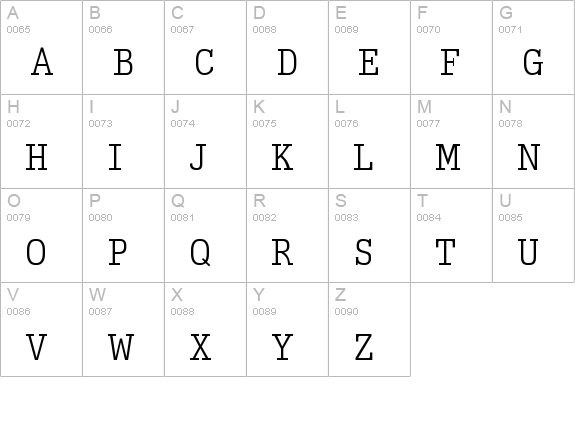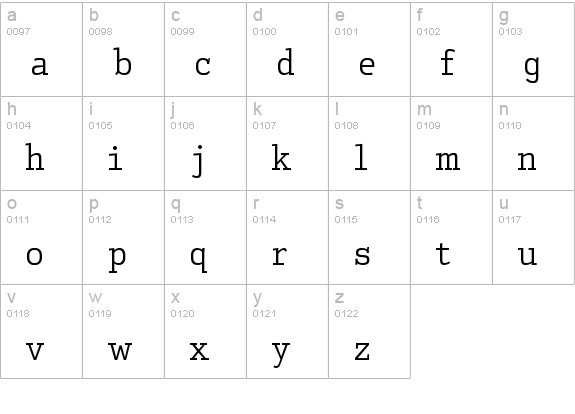
EuropeanTypewriter Font Details
EuropeanTypewriter font is a timeless and classic typeface that brings a touch of elegance to any design project. With its distinct vintage charm and retro feel, this font is perfect for adding a touch of old-world sophistication to your work. The sturdy and reliable letterforms of EuropeanTypewriter evoke the nostalgia of typewriters from days gone by, making it a versatile choice for a wide range of applications. What sets EuropeanTypewriter font apart is its seamless blend of tradition and modernity, making it suitable for both traditional and contemporary designs. Whether you are working on a vintage-inspired project or looking to add a touch of retro flair to a modern layout, EuropeanTypewriter font is sure to make a statement. Best of all, EuropeanTypewriter font is available for free download at FontsMarket.com, making it easily accessible to designers and creatives looking to add a touch of European elegance to their work. Don't miss out on this opportunity to enhance your designs with the timeless appeal of EuropeanTypewriter font.